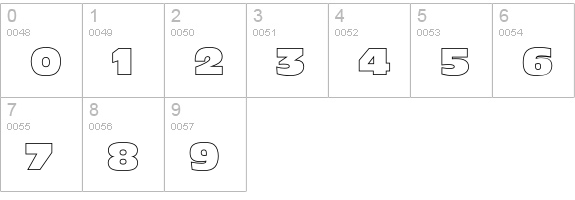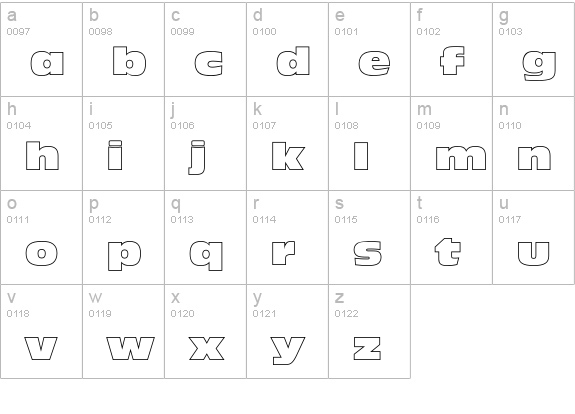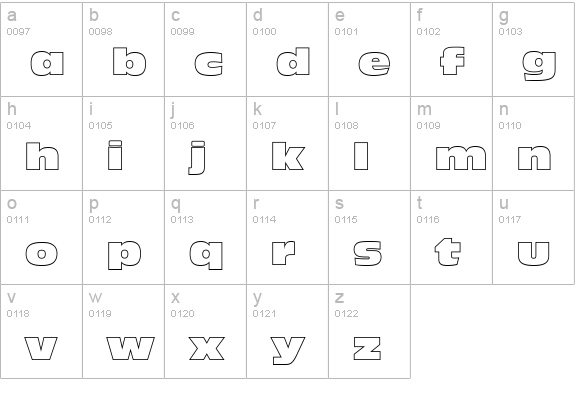
Antique Olive Nord Outline P Regular Font Details
Antique Olive Nord Outline P Regular is the standard, neutral variant in the Antique typeface family \xE2\x80\x94 well suited to general body text, paragraphs, and standard typographic work.
Antique Olive Nord Outline P Regular font is a timeless typeface that exudes elegance and sophistication. Its delicate outline design adds a touch of refinement to any project, making it perfect for use in both print and digital media. With its clean lines and classic appeal, this font is versatile and can be used for a wide range of applications, from branding to editorial design. The Antique Olive Nord Outline P Regular font is available for free download at FontsMarket.com, where you can easily access this beautiful typeface and enhance your creative projects without any cost. Embrace the beauty and versatility of this font to elevate your designs and make a lasting impression on your audience.